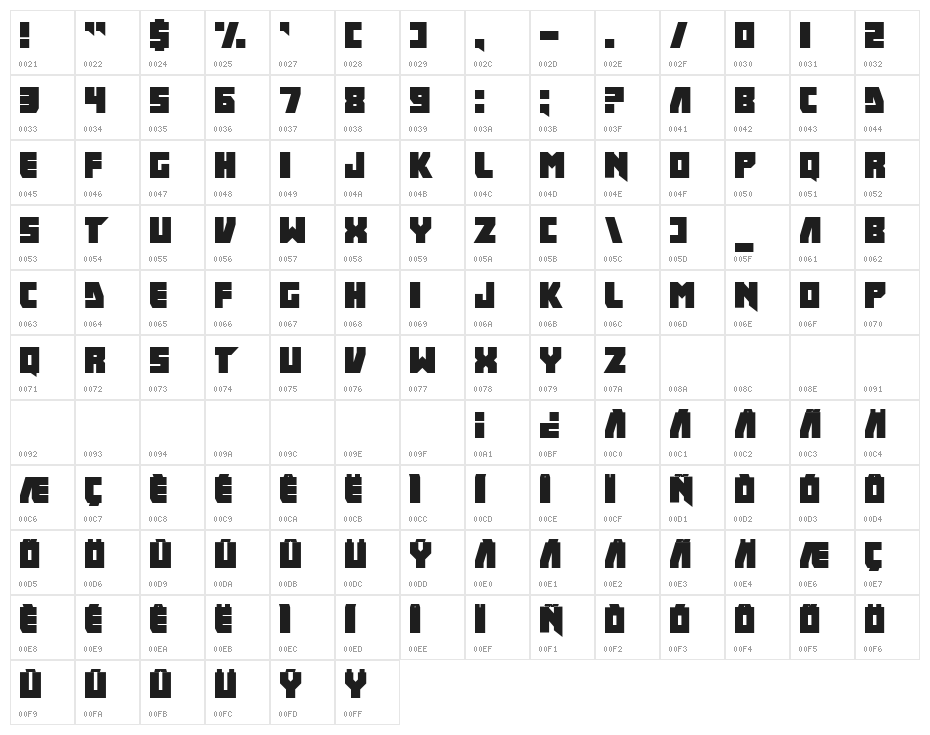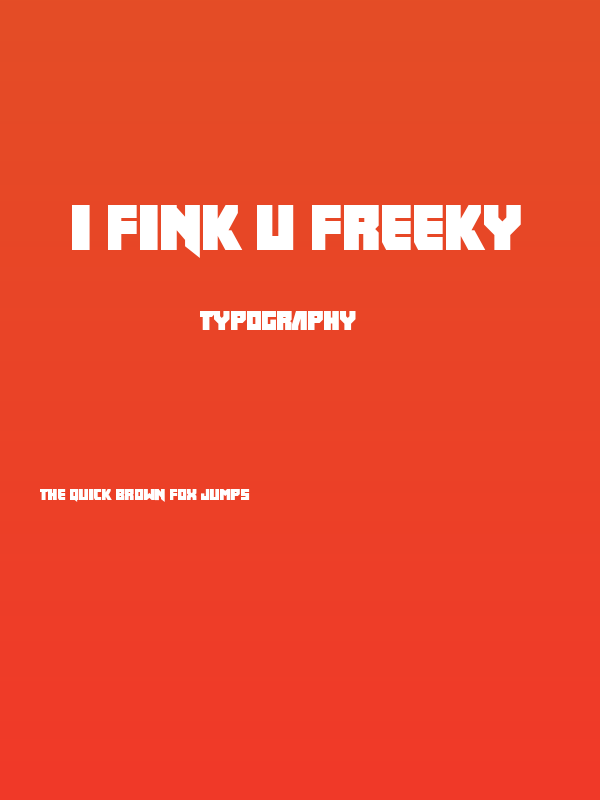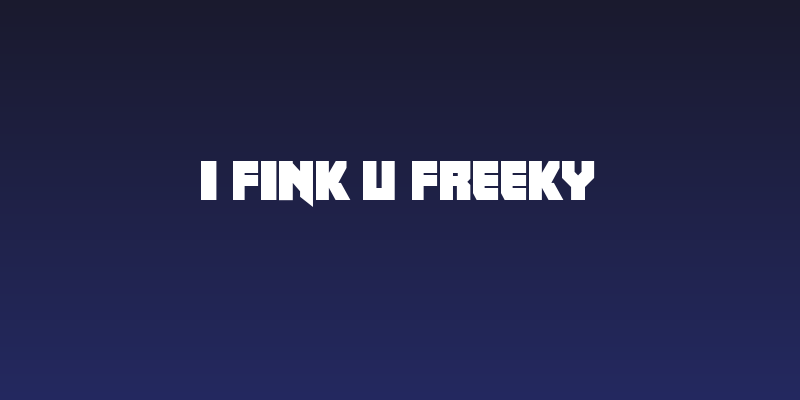
I fink u freeky Font
I fink u freeky Description
This font exhibits a bold, geometric style with sharp angles and a blocky appearance. The characters are uniformly thick, creating a strong visual impact. The design is reminiscent of industrial or futuristic themes, with each letter and number having a distinct, edgy look. The uppercase and lowercase letters maintain a consistent style, while the numbers and special characters integrate seamlessly into the overall design. This font's unique aesthetic makes it stand out, suitable for projects that require a modern and assertive typeface.
| Proposed Projects | Ideal for album covers, posters, video game graphics, and branding that requires a modern, edgy look. |